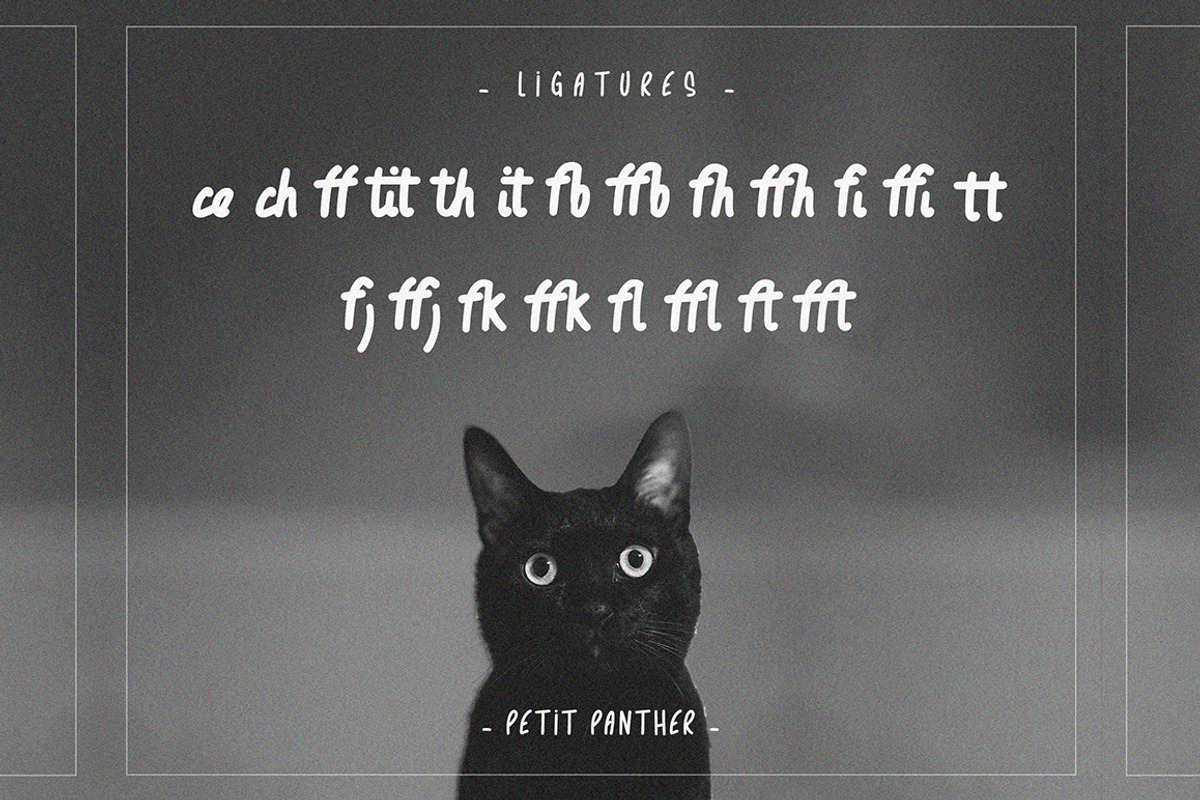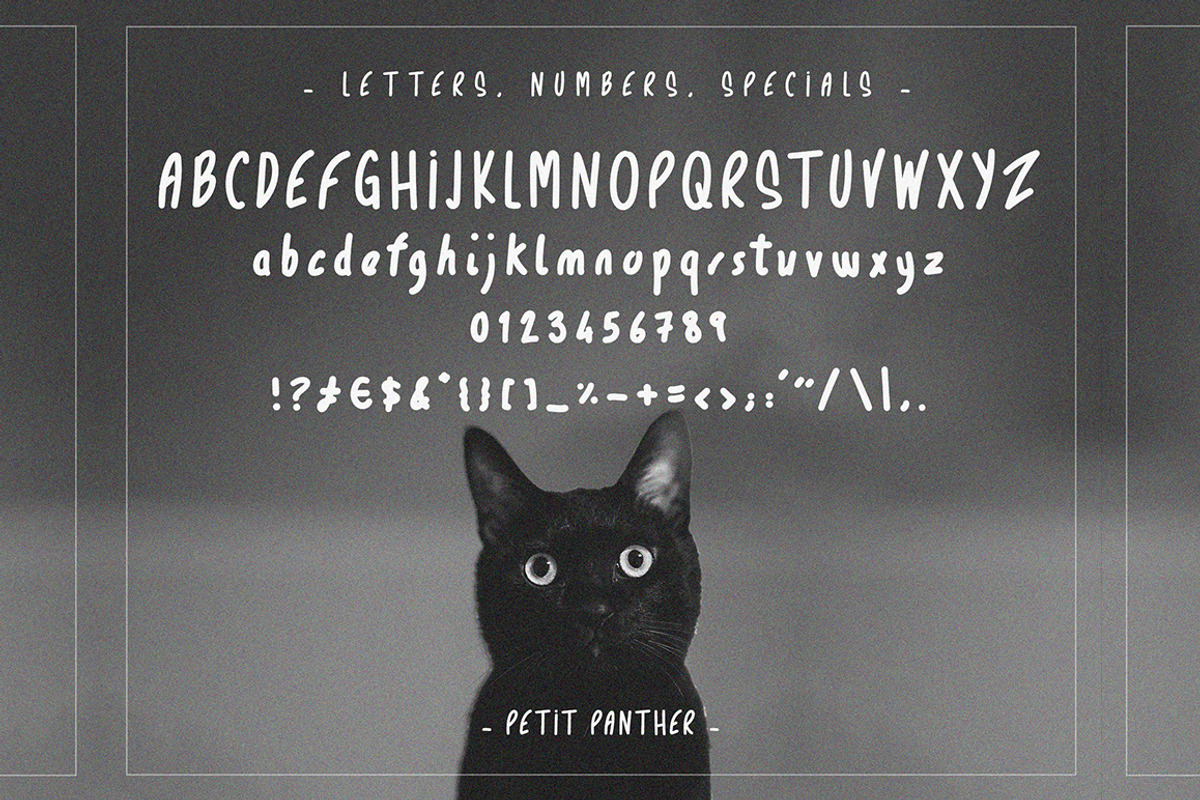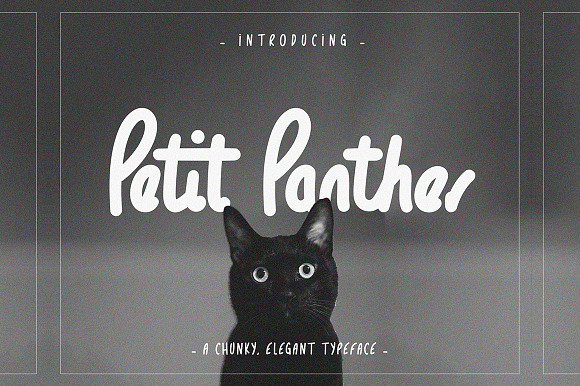
Petit Panther typeface - handwritten
Petit Panther is a handwritten script font.
Petit Panther works well both for web and print; think websites, posters, menus, logotypes, cards, signage, packaging and whatnot.
Glyphs included: Letters from A to Z, numbers from 0 to 9, and a few other punctuation glyphs (see pictures for a preview of all the glyphs).
- Fonts are in uppercase/all caps and lowercase.
Petit Panther typeface - handwritten by PetitPanther fits naturally into Branding, posters, packaging, typography.